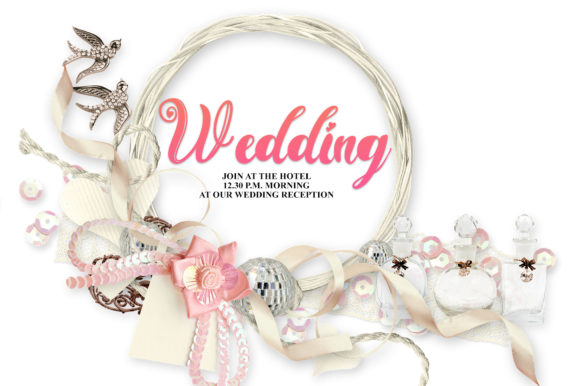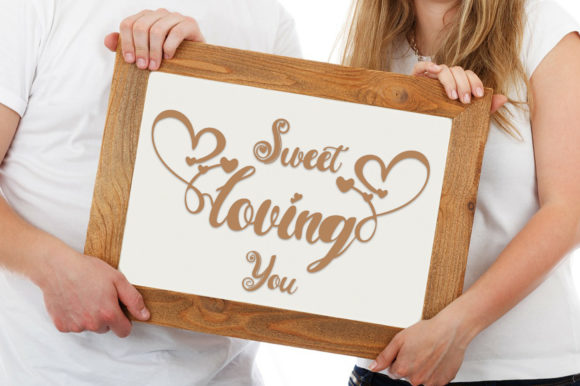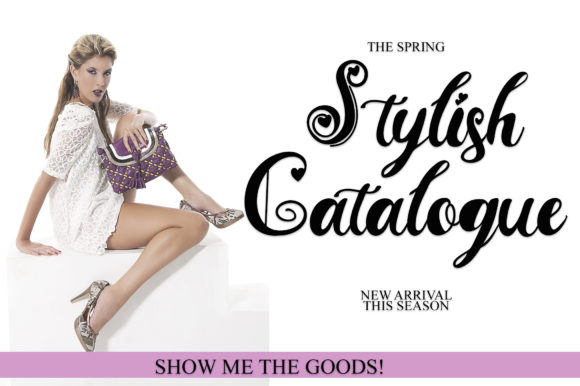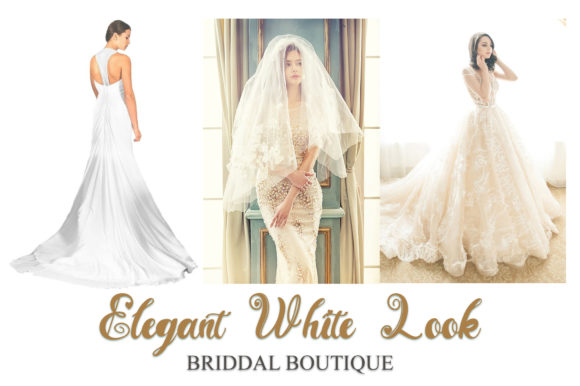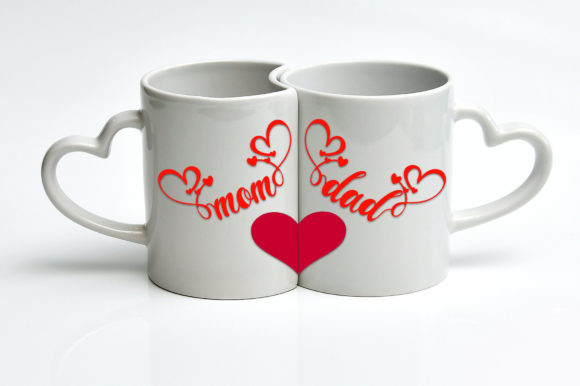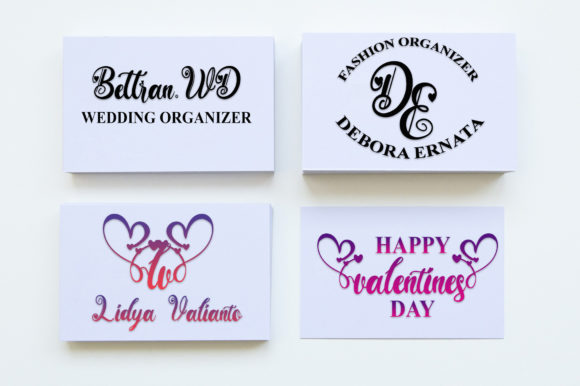
The Power of Typography: How Better Together Font Elevates Your Designs
As designers, we’ve all been there – stuck in a creative rut, searching for that perfect font to bring our project to life. I recall working on a wedding invitation design for a client, wanting to create a romantic and whimsical feel. But no matter how hard I tried, my chosen font just didn’t seem to fit. That’s when I discovered the Better Together font, a lovely and delicate script font that exudes elegance and class.
An Honest Review of Better Together Font
So, what makes Better Together font so special? Let’s dive into the good stuff! 😊
• ✨ Elegant and refined: Better Together font is perfect for designs that require a touch of sophistication and luxury.
• ✅ PUA encoded: This means you can easily access all the amazing glyphs and ligatures, making it a breeze to create stunning text arrangements.
• 🌈 Versatile: Whether you’re designing a wedding invitation, a logo, or a social media graphic, Better Together font adapts seamlessly to various design contexts.
Now, let’s talk about a few minor quirks ⚠️:
• 🤔 Limited use in body text: While Better Together font is gorgeous, it’s not ideal for lengthy body text. Its delicate nature works best in headlines, titles, or short paragraphs.
• ⚠️ Some characters may require manual kerning: As with any font, you might need to adjust kerning for certain character combinations to achieve optimal results.
The Story Behind Better Together Font
Better Together font was crafted with love by a talented type designer who aimed to create a font that would bring people together through beautiful typography. Inspired by classic scripts and refined with modern touches, this font is the perfect blend of elegance and playfulness.
What is PUA encoding? PUA (Private Use Area) encoding allows designers to access a wide range of glyphs and ligatures, making it easier to create stunning text arrangements.
Is Better Together font suitable for body text? While it’s beautiful, Better Together font is best used in headlines, titles, or short paragraphs. Its delicate nature might not work well for lengthy body text.